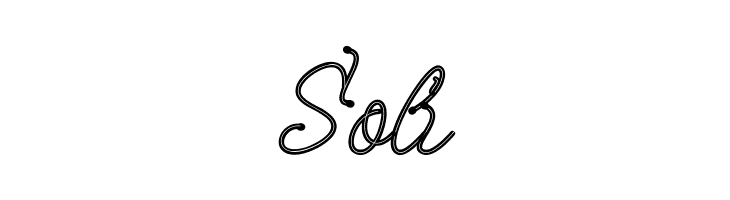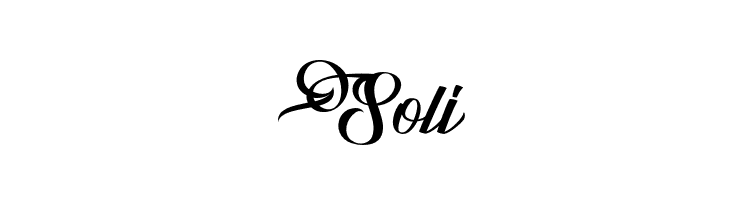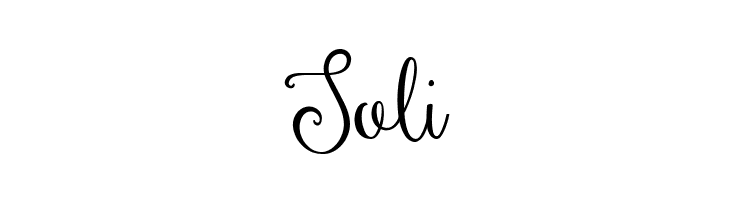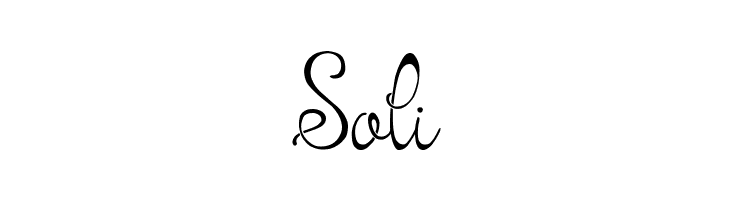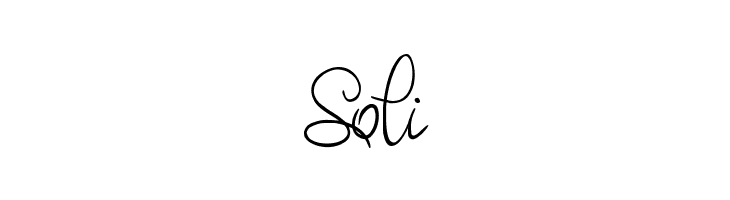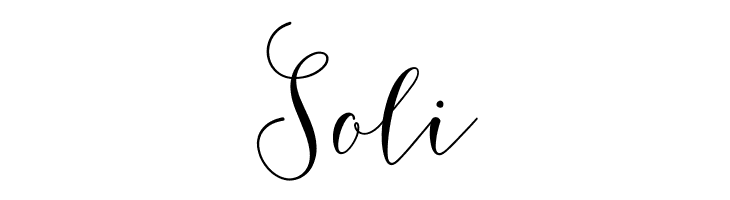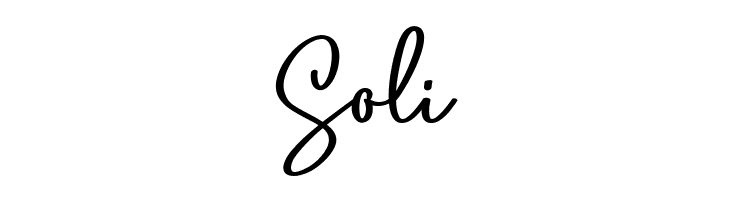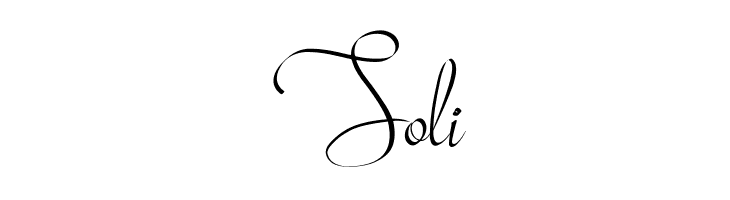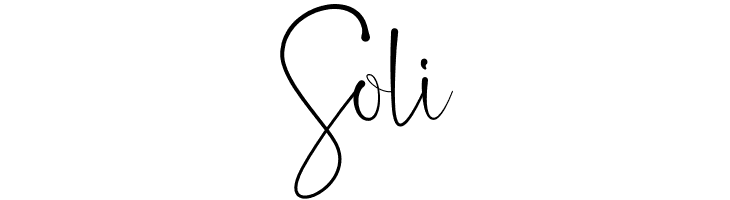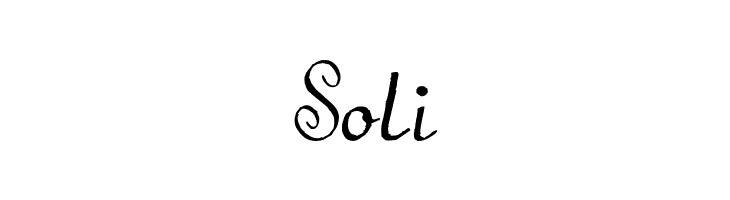
A decorative script font with elegant swirls and playful loops.
A sophisticated cursive font with elegant loops and swashes.
A decorative cursive font with elegant loops and swirls.
A graceful script font with flowing, cursive letters and elegant loops.
A playful and whimsical script font with flowing curves and elegant loops.
An elegant and flowing script font with decorative loops and swirls.
An elegant, decorative script font with intricate swirls and loops.
A whimsical, handwritten font with elegant curls and loops, perfect for creative projects.
A whimsical and decorative font with playful curls and loops, ideal for creative projects.
An elegant and decorative script font with intricate swirls and loops.
An elegant and flowing script font with intricate loops and swashes.
A whimsical and artistic font with elongated, narrow characters and decorative loops.
A graceful script font with elegant loops and modern calligraphic style.
A playful, whimsical script font with elegant loops and a handwritten feel.
An elegant script font with flowing, intricate loops and swashes.
An elegant and flowing script font with intricate loops and swashes.
A decorative script font with elegant loops and swashes.
A sophisticated, slanted script font with elegant loops and flourishes.
A cursive script font with elegant loops and swirls, perfect for sophisticated designs.
An elegant and flowing script font with intricate loops and swirls.
A whimsical, handwritten font with playful loops and curves.
A flowing, cursive font with elegant loops and swashes, perfect for creative projects.
A graceful script font with fluid, interconnected strokes and elegant loops.
A whimsical and playful font with curly, looping strokes and decorative swirls.
A playful, double-outline font with looping, swirling characters.
An elegant, cursive font with decorative loops and swirls.
An elegant, flowing script font with intricate loops and swirls.
( Intellecta Design - Paulo W - new.myfonts.com/foundry/Intellecta_Design/?refby=paulow )
An elegant script font with flowing, interconnected letters and graceful loops.
( Intellecta Design - Paulo W - new.myfonts.com/foundry/Intellecta_Design/?refby=paulow )
A decorative cursive font with elegant loops and swirls.
( Intellecta Design - Paulo W - new.myfonts.com/foundry/Intellecta_Design/?refby=paulow )
An artistic script font with elegant, flowing lines and intricate loops.
( JBFoundry - Jean Boyault - jean.boyault.pagesperso-orange.fr/ )
A modern decorative font with elegant curves and playful loops.
( JBFoundry - Jean Boyault - jean.boyault.pagesperso-orange.fr/ )
A playful and whimsical script font with curly, looping strokes and decorative flourishes.
A whimsical, handwritten font with elegant swirls and loops.
A whimsical, looped serif font with decorative elements and medium weight.
A whimsical, hand-drawn font with playful loops and swirls.